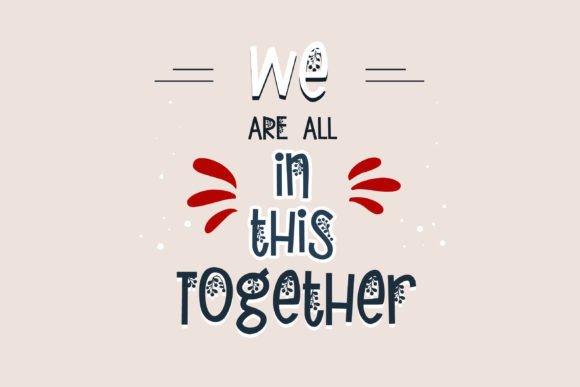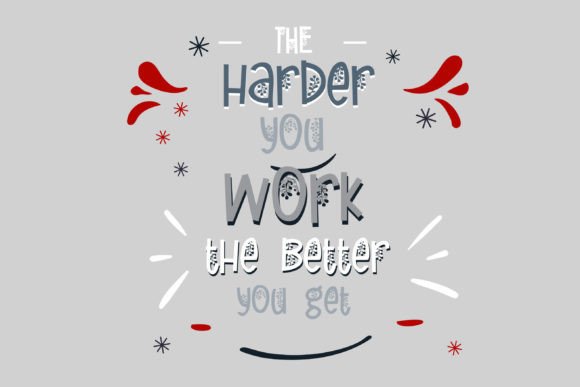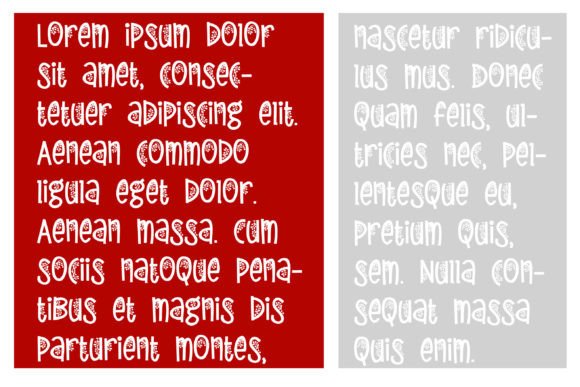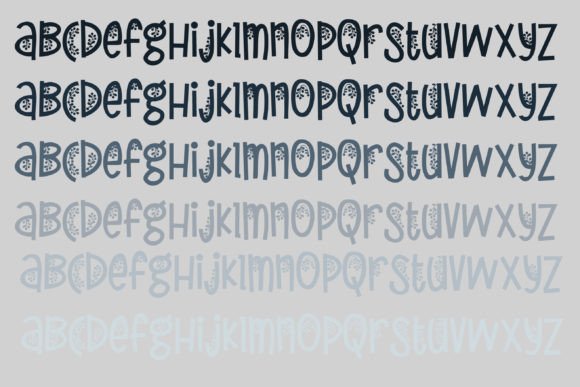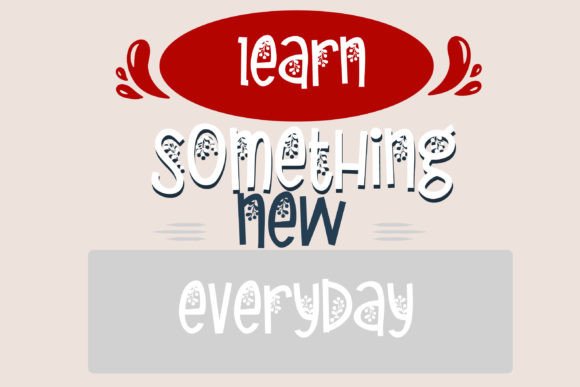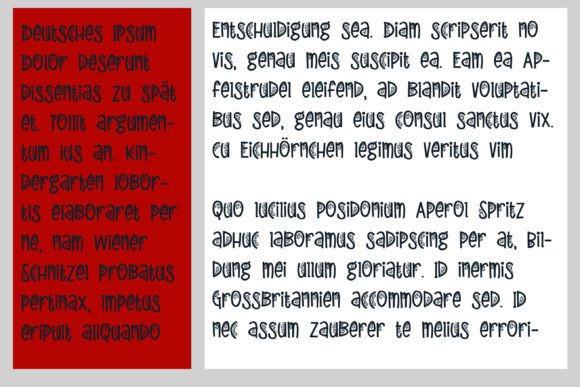
Introduction to Mythical Mistletoe Font
Mythical Mistletoe is a cute and adorable handwritten decorative font that features little berries and leaves.
Add it confidently to your holiday projects and you will love the results .
Key Features of Mythical Mistletoe Font
Why Choose Mythical Mistletoe Font?
Mythical Mistletoe Font offers exceptional quality and versatility, making it a valuable addition to your design toolkit. Whether you’re creating for personal projects or commercial use, Mythical Mistletoe Font delivers professional results.